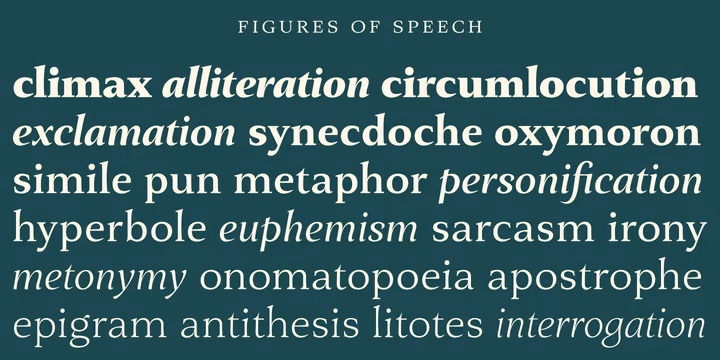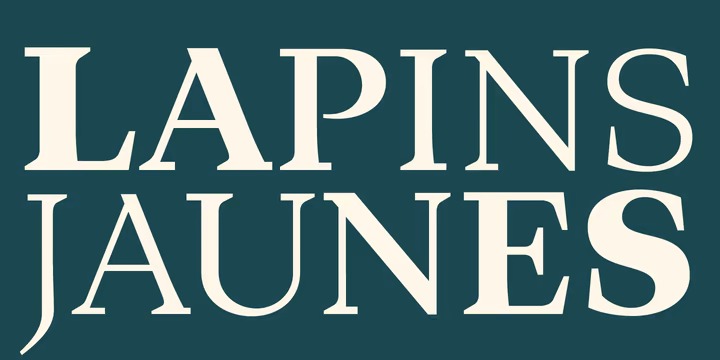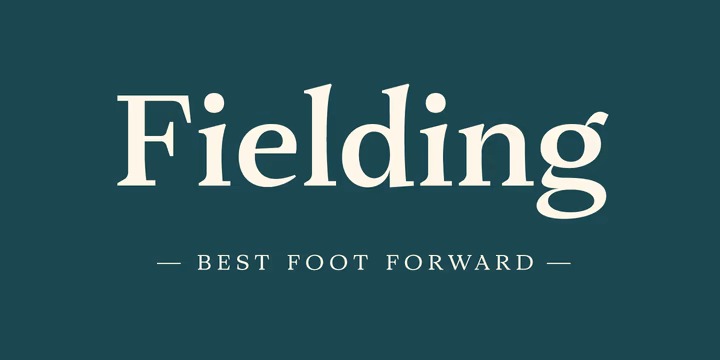
Fielding Font Family
Fielding Serif Font
This is a aesthetic, modern, display font inspired by contemporary typography. Characterized by generous unstressed curves, subtley waisted stems and asymmetric serifs, Fielding is a great choice for sure-footed stylish text and elegant headlines. Its warm classical forms resolve into highly readable text at any size both on paper and on screen.
Six weights and corresponding italics provide a choice of styles while small capitals, superscript, subscript, fractions, a range of ligatures and cameo capitals will add refinement to the most demanding of layouts.
Default numerals are of uniform height, a little smaller than capitals and are proportional: not ‘old style’ in the traditional sense, they nevertheless sit comfortably in general text. Tabular numerals and lining numerals are also available.
Italic styles are lighter in weight and freer in form, skipping alongside their upright counterparts to provide pleasing emphasis or variation.
First designed for a quarterly magazine, Fielding can be used wherever a modern interpretation of tradition is required including branding and packaging, websites, news media, books, general publicity and smart documentation.